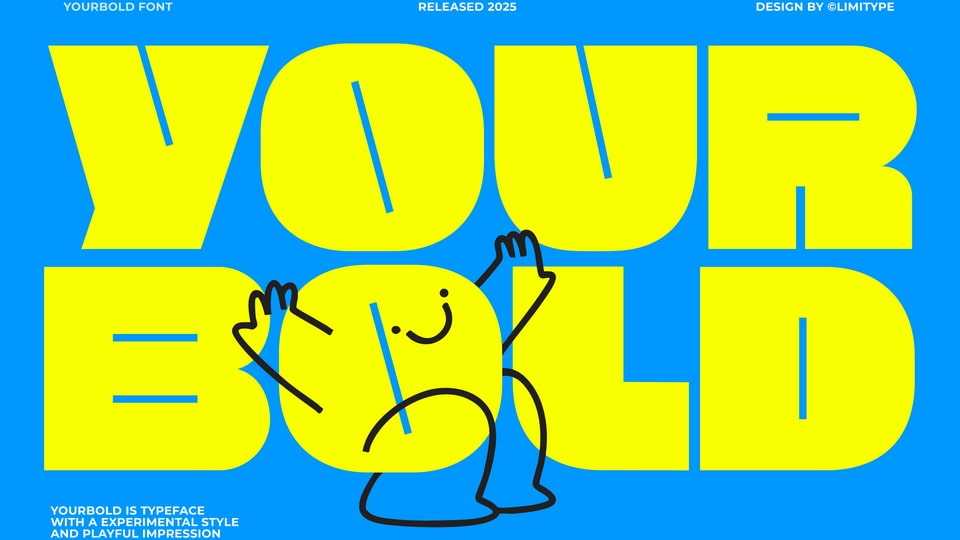
Download Yourbold Display font, designed to be bold, playful, strong, and full of character. Perfect for headlines, posters, logos, and any design that needs to make a strong first impression.